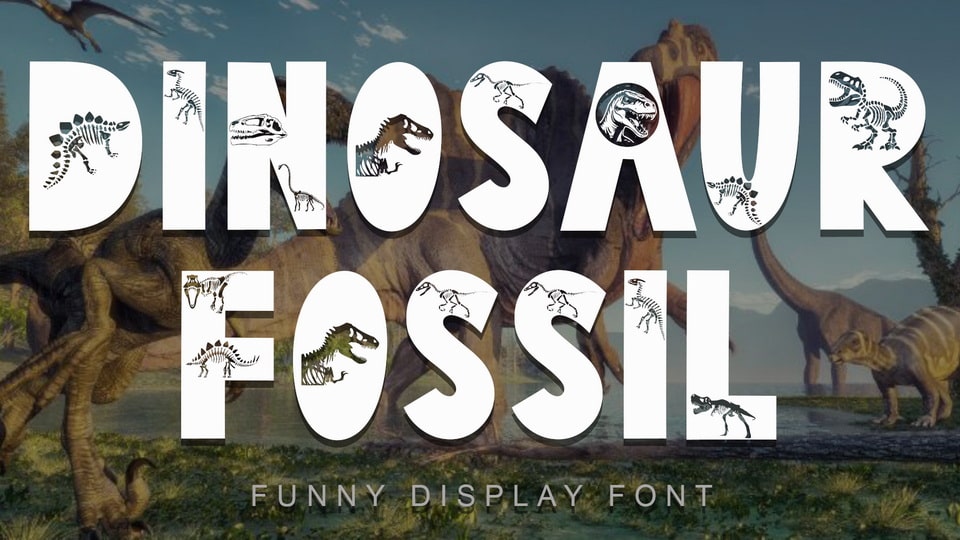
Download Dinosaur Fossil font, a unique and cute display typeface. This font has a dino pattern on each letter, very suitable for something with a dinosaur theme, cartoons, comics, magazines, cartoon movie titles, and others.